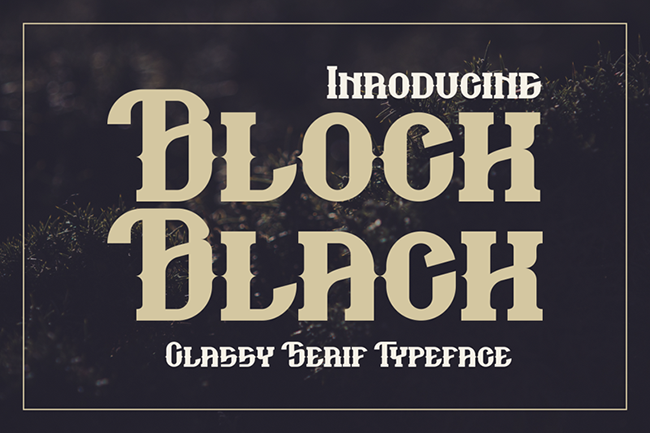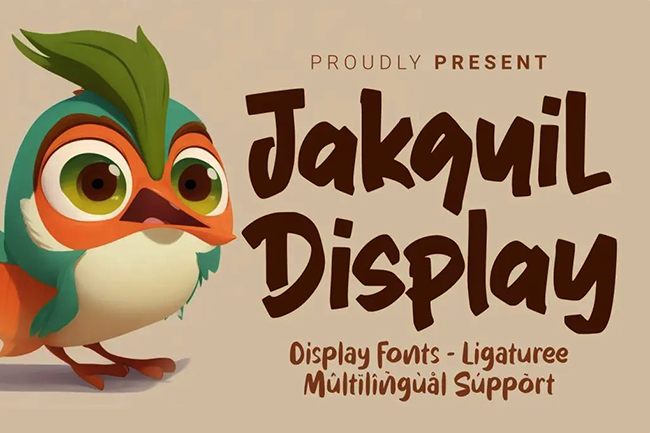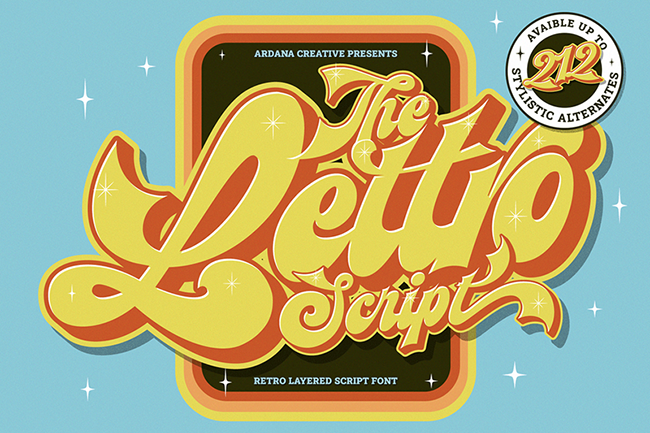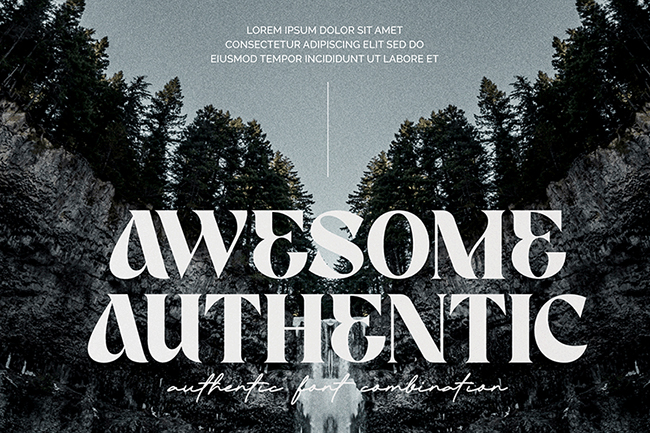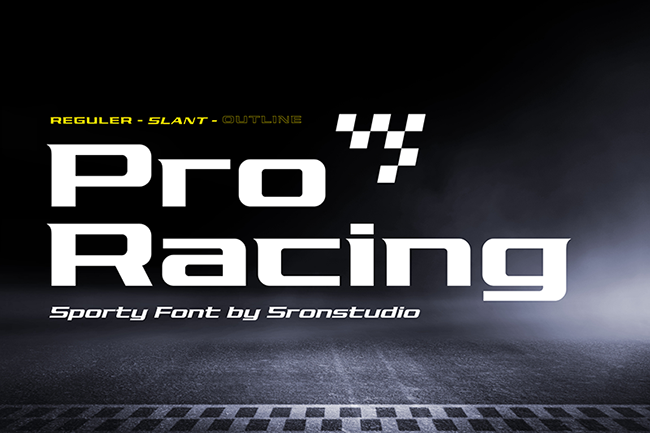
5 Fonts for Race Wraps Vol. 24
Five Fonts for Race Wraps and race wrap ideas and inspiration Vol 24
Need some fonts for your race wraps or motorsports themed design projects? Download these 5 fonts to help get your creativity rolling Perfect for racing numbers, sponsors and other racing graphic design projects! My goal here is to always share something bold enough to stand out on a race car but also unique.